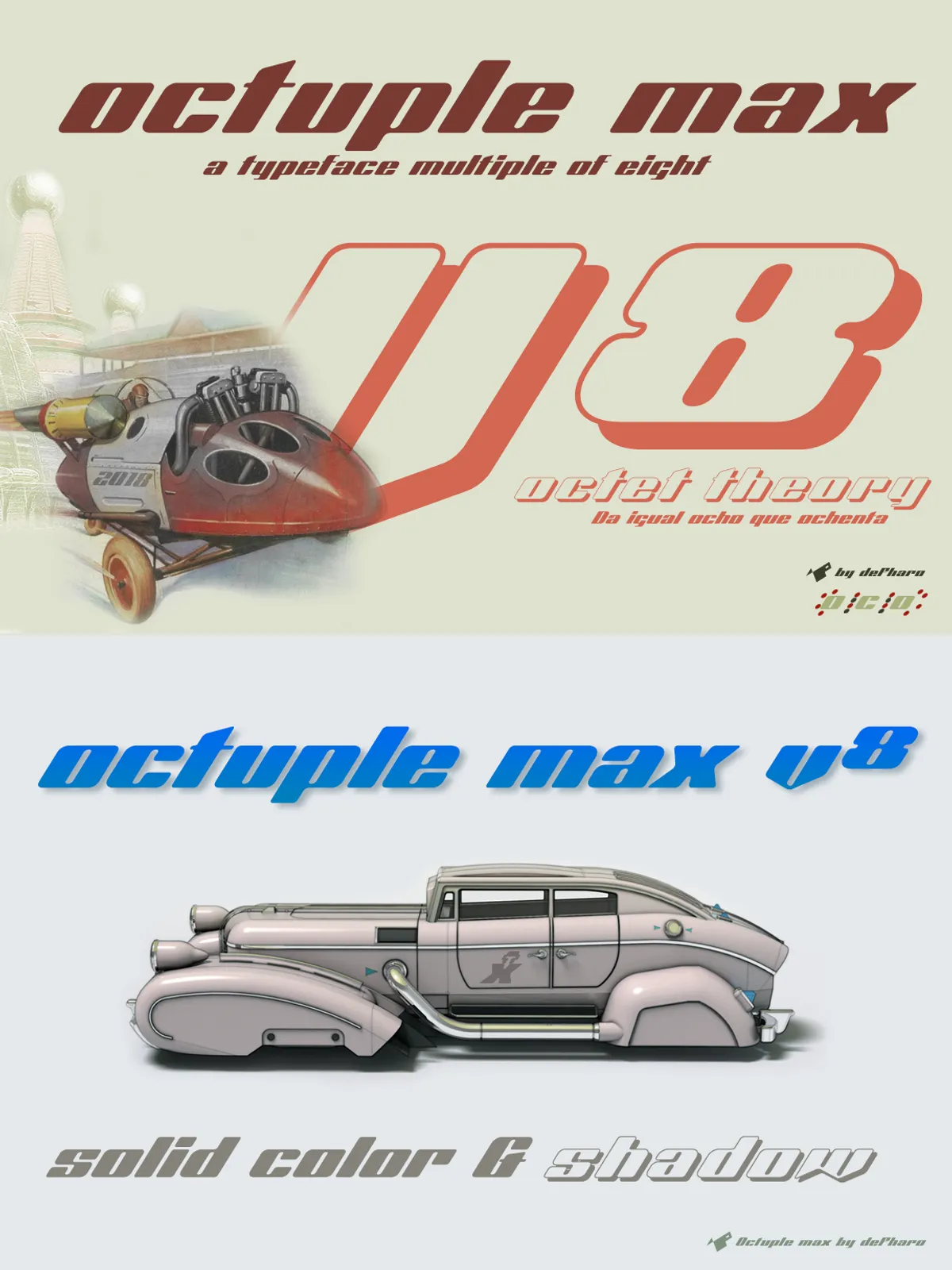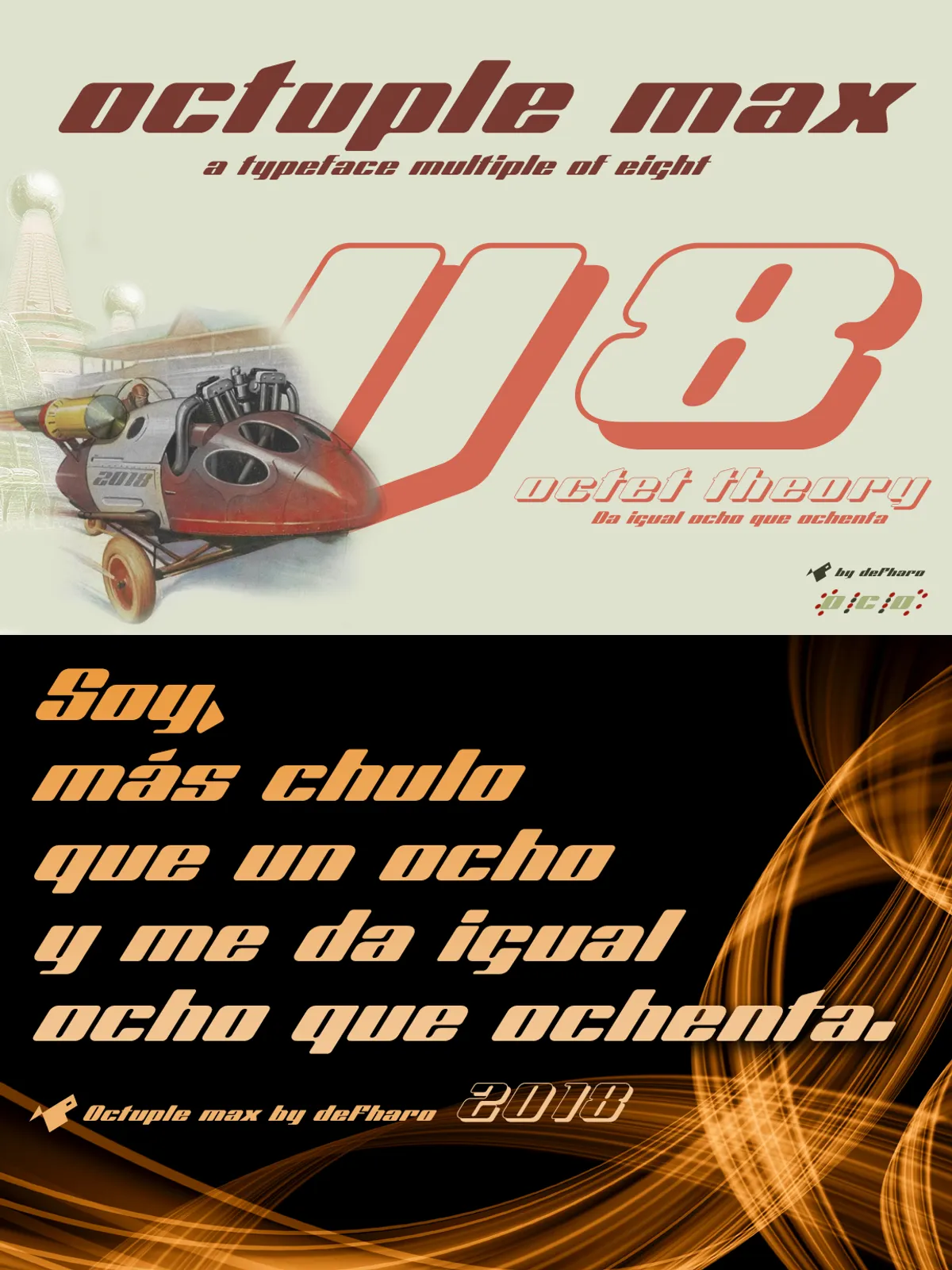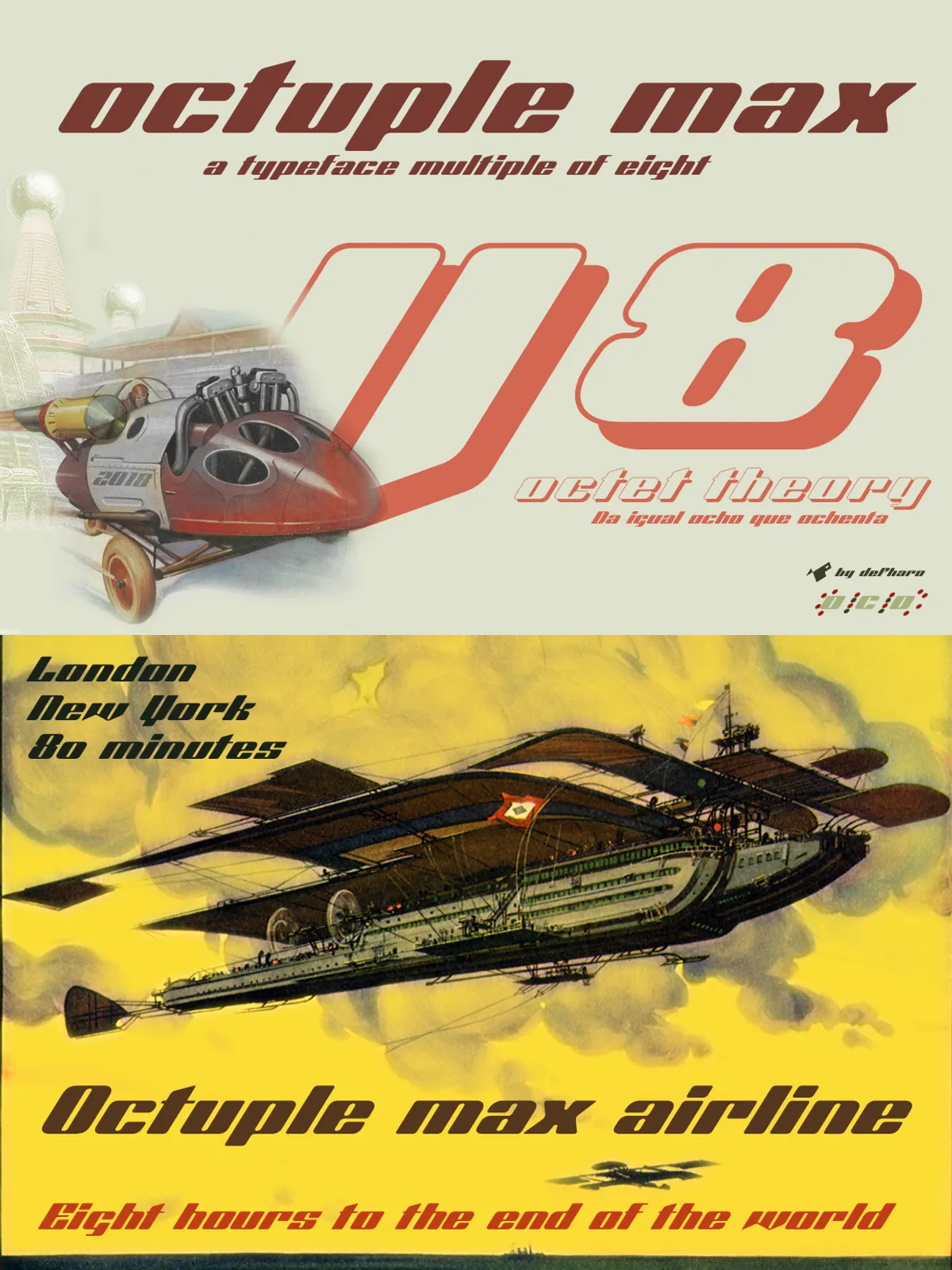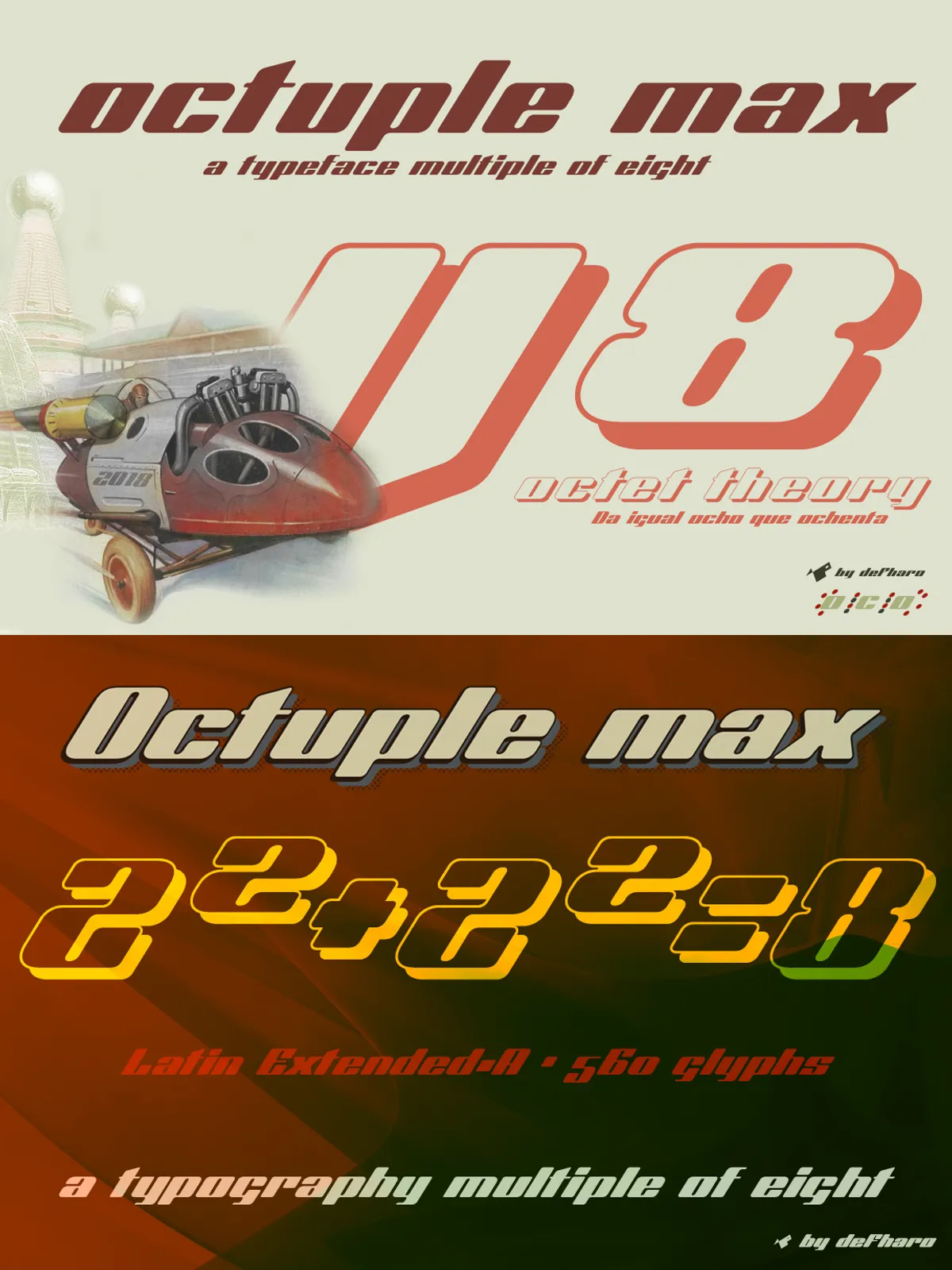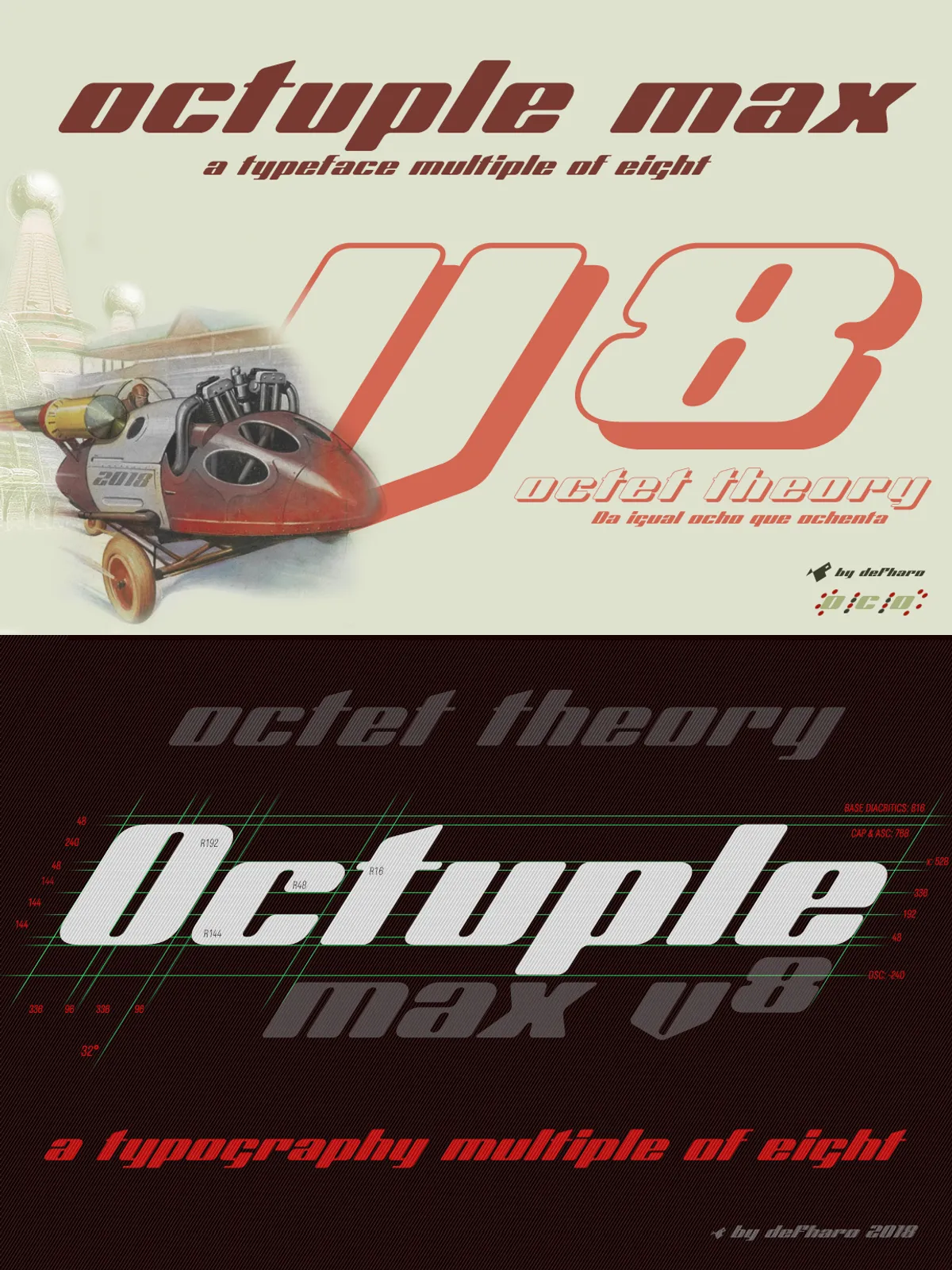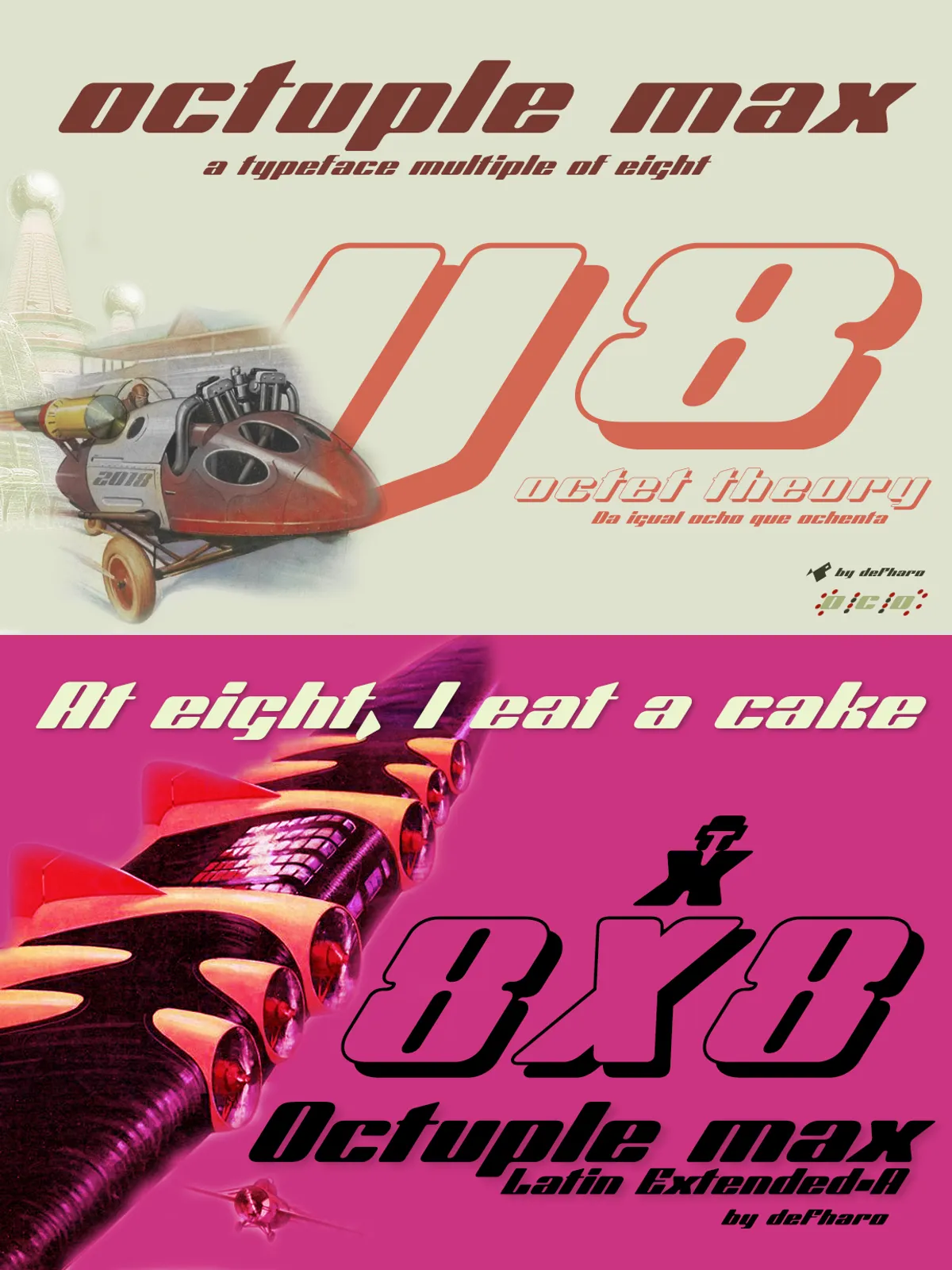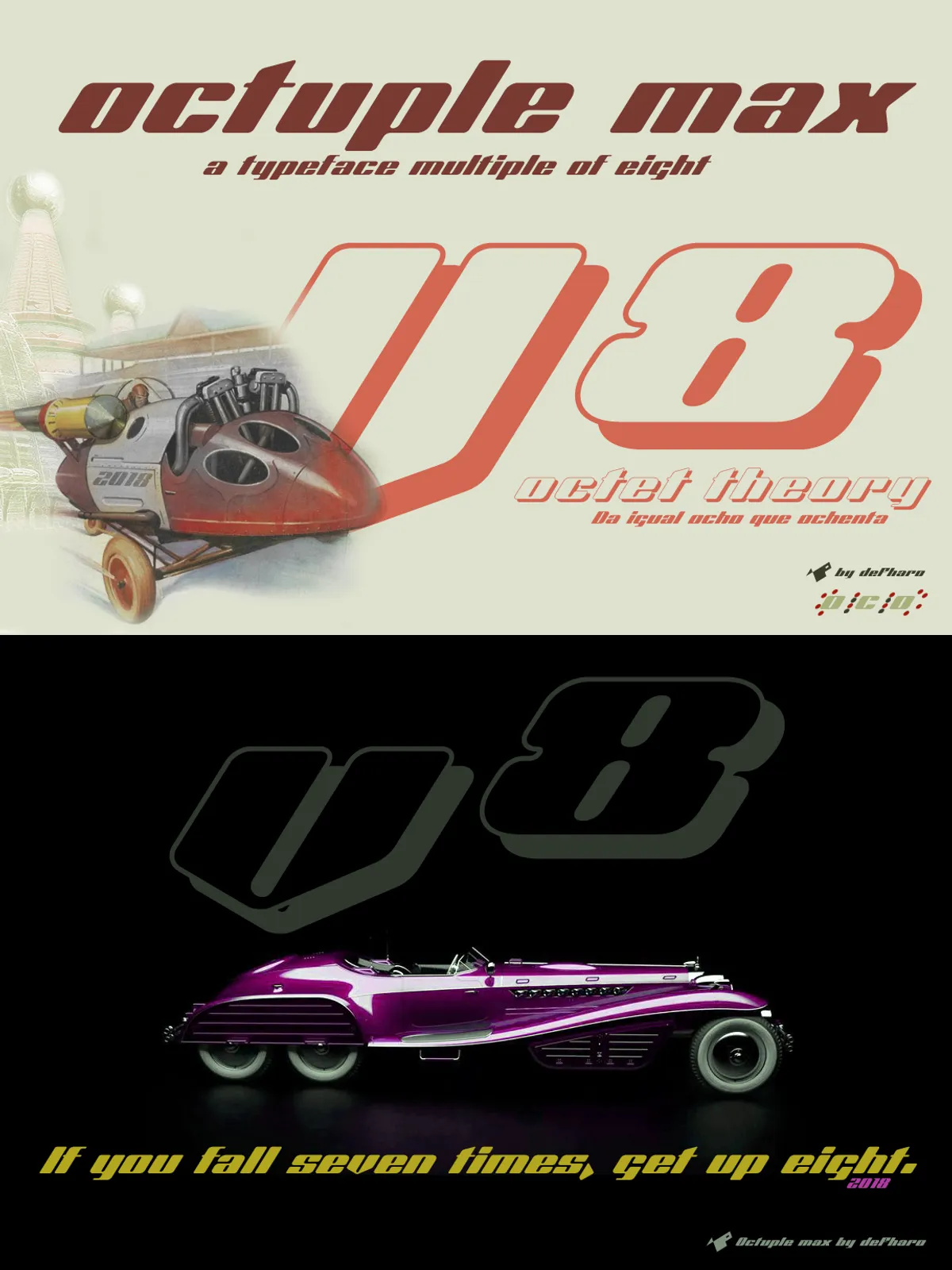
Octuple max -2 fonts-
Octuple Max isn’t just a font—it’s a radical typographic manifesto built entirely on the mathematical principle of multiples of eight. Every single measurement, from character height to stroke width, counterform, and corner radius, is derived from a base unit of 48/u. This rigorous system creates a visually unified, geometrically harmonious typeface with an unparalleled sense of symmetry and structure.
From the moment you lay eyes on Octuple Max, you’ll notice its bold, square proportions. The height of capital letters and ascenders (768/u) is perfectly matched to the total character width (768/u), while descenders extend precisely to 192/u below the baseline. This balanced, square architecture delivers a powerful visual presence—ideal for strong branding, poster design, and digital display work.
High Contrast, Seamless Flow: The Power of Slanted Geometry
Breaking Rigidity with a 32° Inclination
Although its proportions are rigidly mathematical, Octuple Max refuses to feel cold or mechanical. The 32° slant applied to all characters injects dynamic tension and fluid motion into the type. This intentional tilt disrupts the formality of a purely geometric alphabet and adds a sense of movement—perfect for posters, titles, and advertising where visual impact is paramount.
The horizontal horns (48/u) and vertical horns (336/u) create a high-contrast structure, emphasizing the intersection of strength and precision. Meanwhile, all rounded corners use radii based on multiples of eight—most notably 48/u—but also 16/u, 24/u, 32/u, 96/u, 144/u, 192/u, and 240/u—providing subtle variation and visual softness across different character forms.
Designed for Impact, Not Just Aesthetics
Monospaced with Exceptional Fluidity
Despite its strict geometric foundation, Octuple Max maintains excellent readability in display contexts. The counterforms maintain a consistent 96/u width, and the overall width of characters (336 + 96 + 336 = 768/u) is mathematically aligned with the capital height—creating a harmonious, monospaced rhythm that flows smoothly across the page.
Remarkably, this font requires no manual kerning. Every glyph pairing has been pre-calculated within the 8-based system, ensuring consistent spacing and visual balance—making it a powerful tool for digital designers, motion artists, and print professionals who demand efficiency and precision.
Designed for the Modern Neo-Retro Aesthetic
Where Retro Meets Futuristic Geometry
Octuple Max is more than just a functional font—it’s a statement. Its stark, angular forms and mathematical harmony evoke a neo-retro style that feels both vintage and futuristic. The geometric clarity and digital precision make it ideal for retro-futurist branding, film title sequences, music posters, and conceptual advertising campaigns.
Its inclusion of the Bitcoin symbol and a full suite of currency signs expands its utility for tech startups, fintech brands, and digital culture projects. With OpenType features supporting numerators, fractions, superscript, subscript, alternate characters, and multilingual support, Octuple Max delivers professional-grade functionality across industries.
Octuple Max is not just a typeface—it’s a design philosophy. It challenges the boundaries of digital typography by proving that mathematical rigor can coexist with artistic expression. If you’re looking for a font with personality, presence, and unshakable precision, then Octuple Max is your next creative partner.